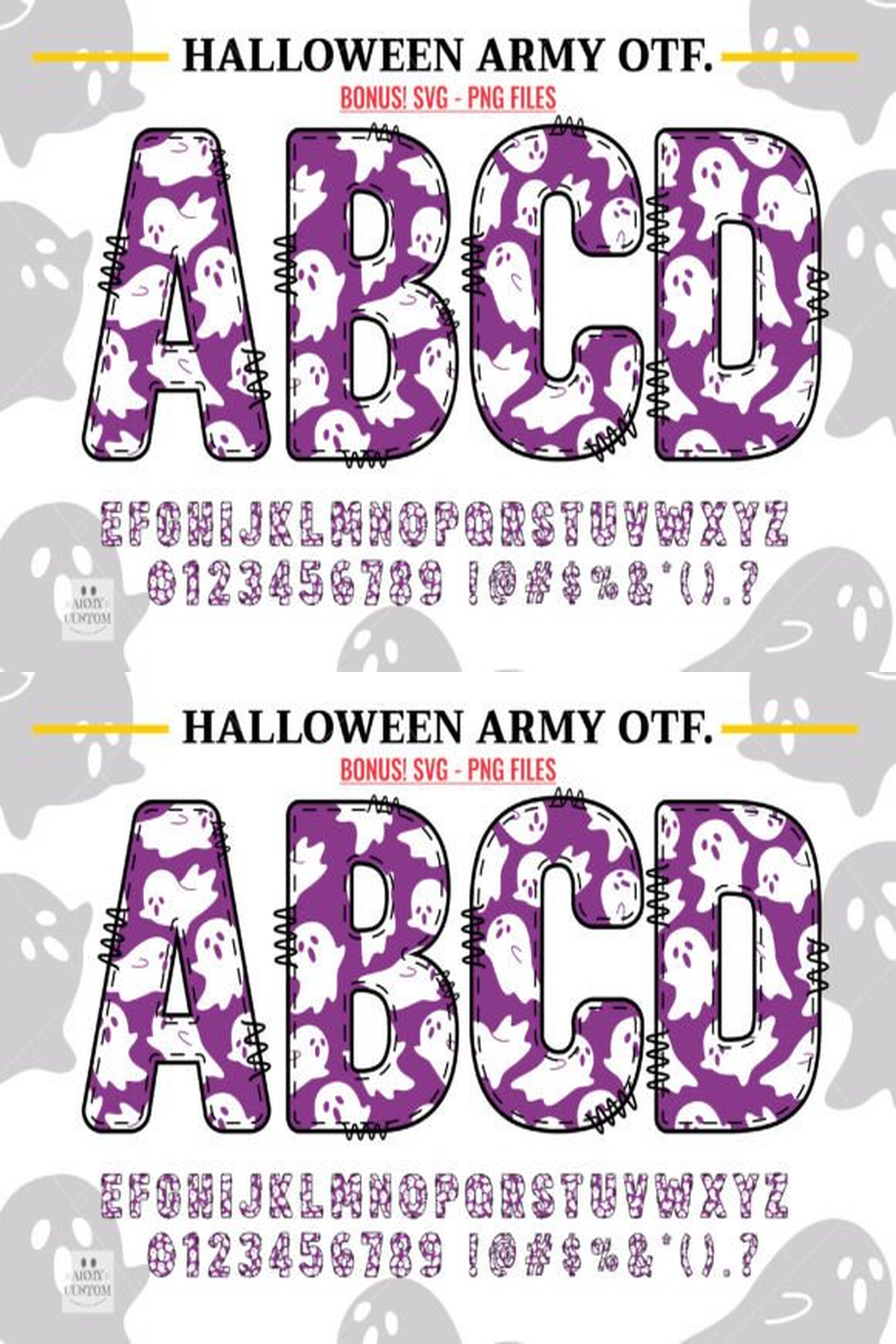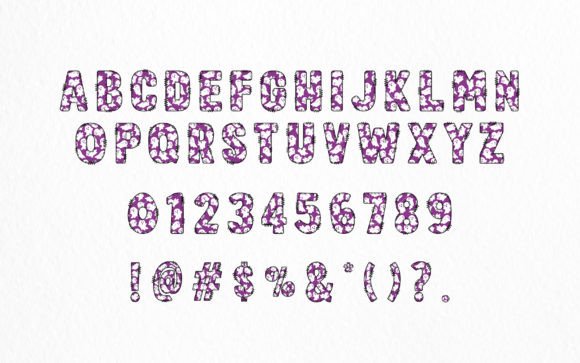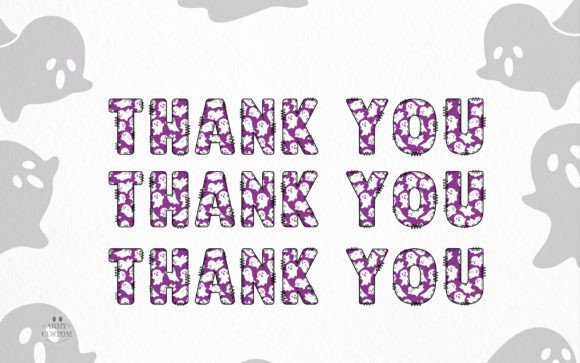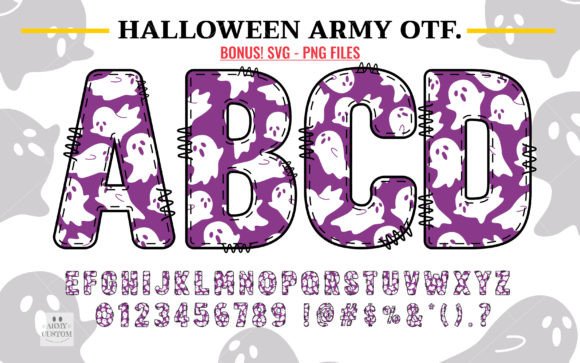
Halloween Army Ghost Font
About the Halloween Army Ghost Font
Presenting Halloween Army Ghost Font, a unique and stylish typeface that will make your work stand out. Introducing the spellbinding and distinct Halloween Doodle Font Color that’s sure to add an unmistakable touch of magic to your creations. Ideal for enhancing arts and crafts projects, adding unique charm to scrapbooking endeavors, or infusing personality into stationary and cards. Catch every eye with enchanted blog banners and backgrounds or transform interiors with mesmerizing wall art. This font is truly a vibrant toolkit for all your creative needs, making every product you design a standout piece. Revel in the joy of creation with the Halloween Doodle Font Color.